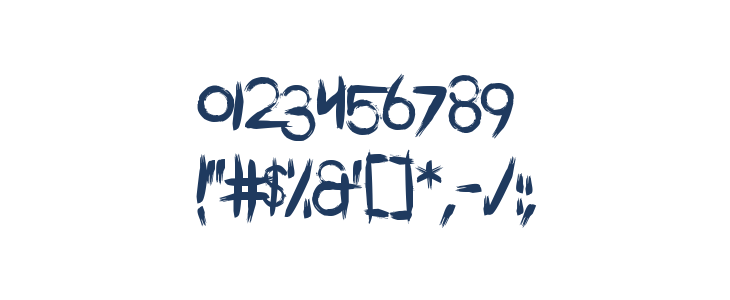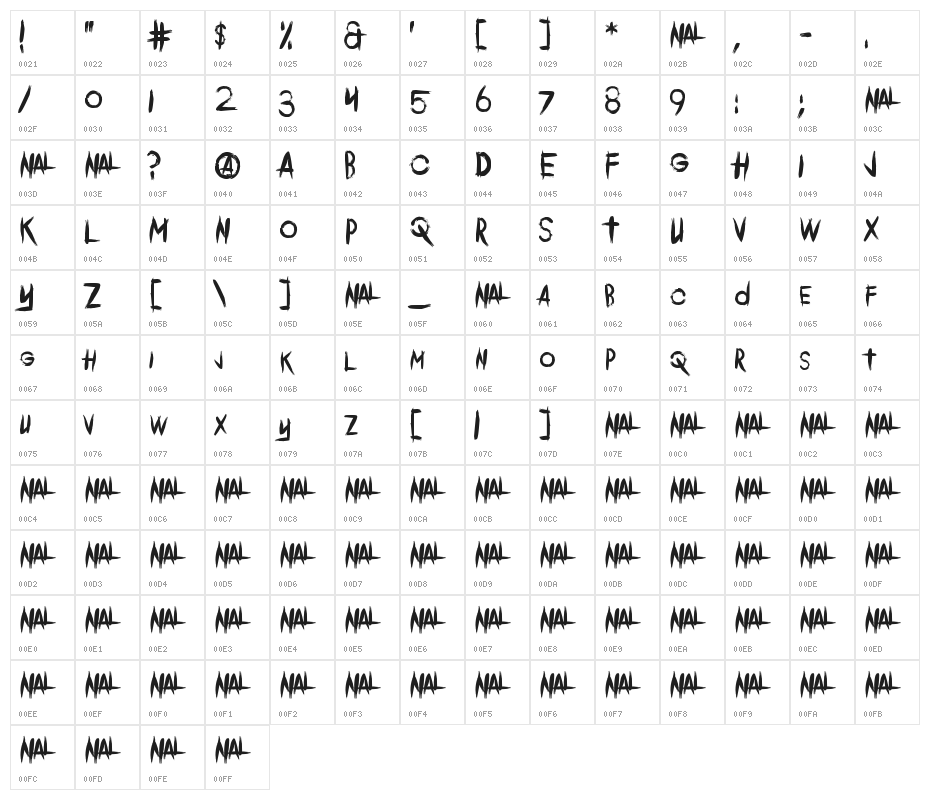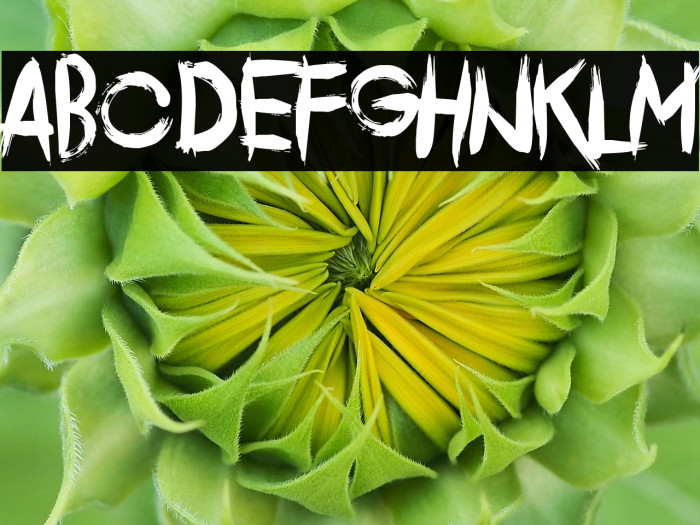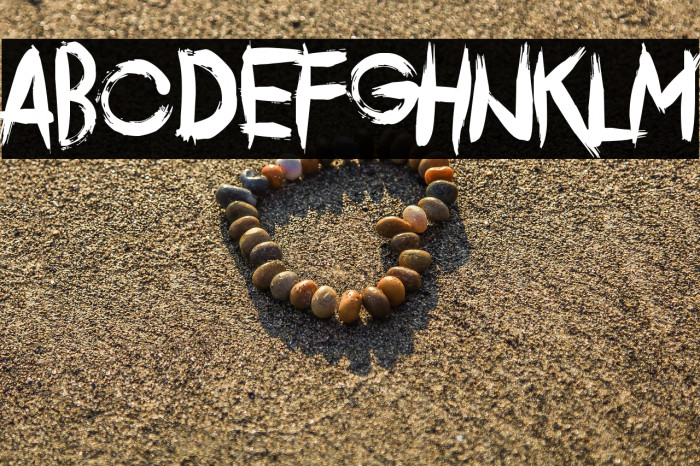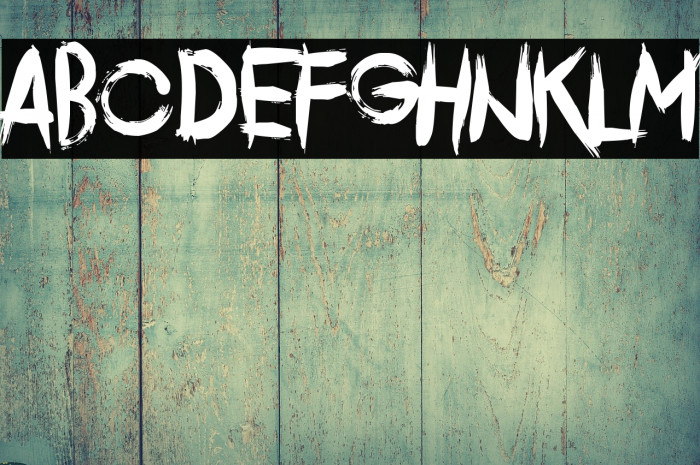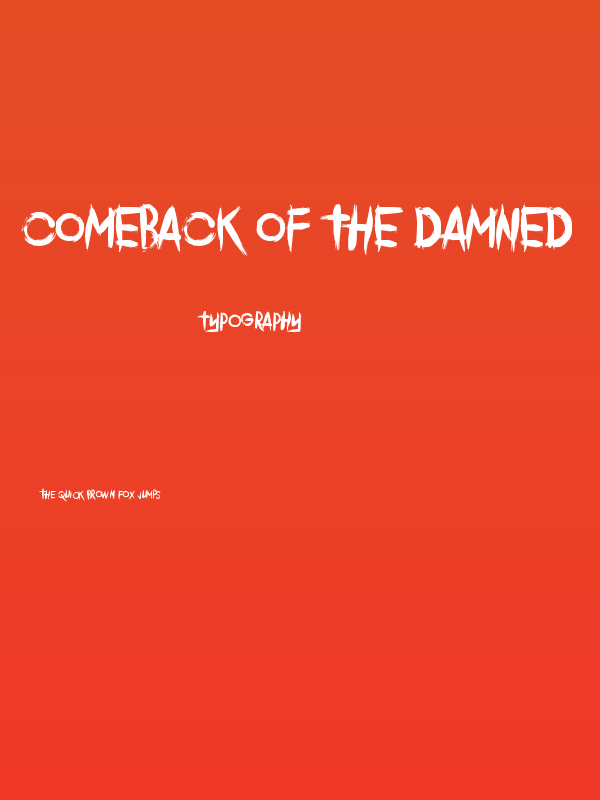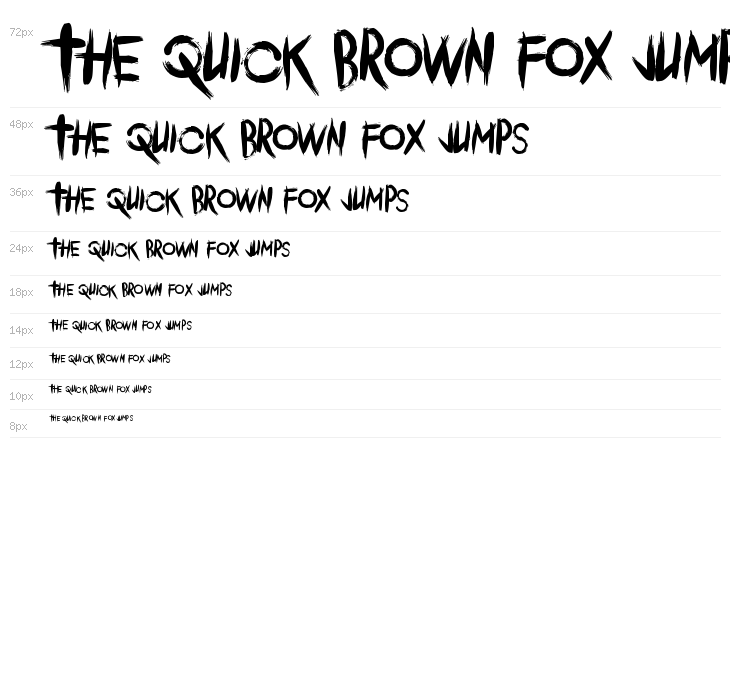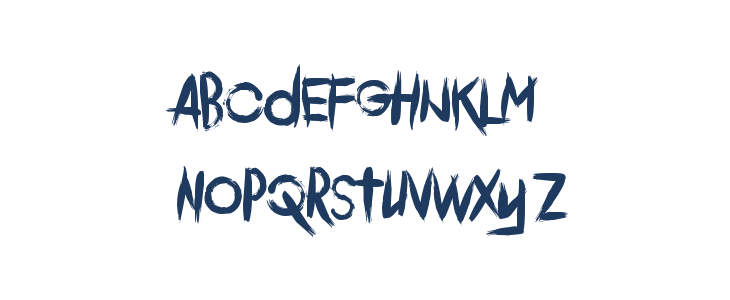
Comeback Of The Damned Font
Comeback Of The Damned Description
This font features a bold, distressed style with a hand-painted appearance. The characters are jagged and uneven, giving it a raw, edgy feel. The strokes are thick and vary in width, creating a dynamic and energetic look. The uppercase and lowercase letters maintain a consistent style, with sharp angles and rough edges. The numbers and special characters follow the same aesthetic, adding to the overall cohesive design. This font is ideal for projects that require a grunge or rebellious theme, as it captures attention with its bold and unconventional appearance.
| Proposed Projects | Ideal for album covers, posters, streetwear branding, and edgy graphic designs. |